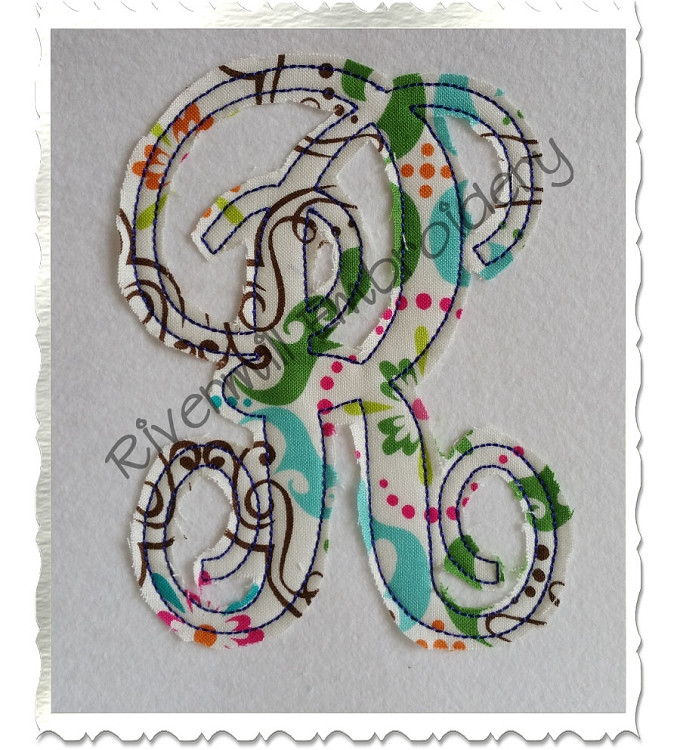
Raggy Fancy Monogram Applique Machine Embroidery Alphabet Font
Each letter is a raggy applique. It has a placement outline and a bean stitch (triple stitch) on top as shown in the first image.